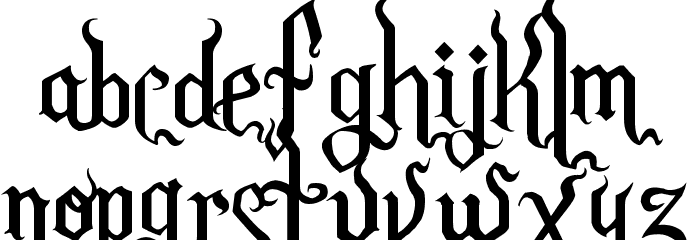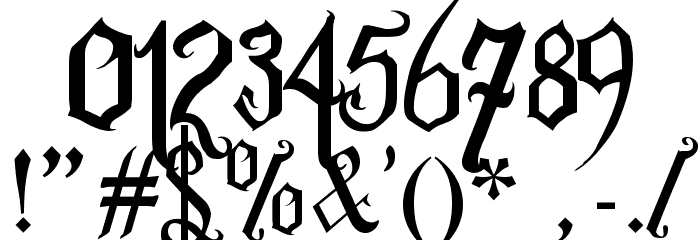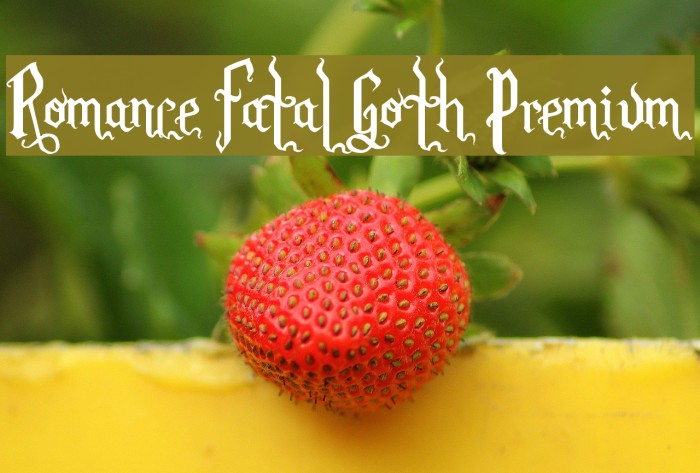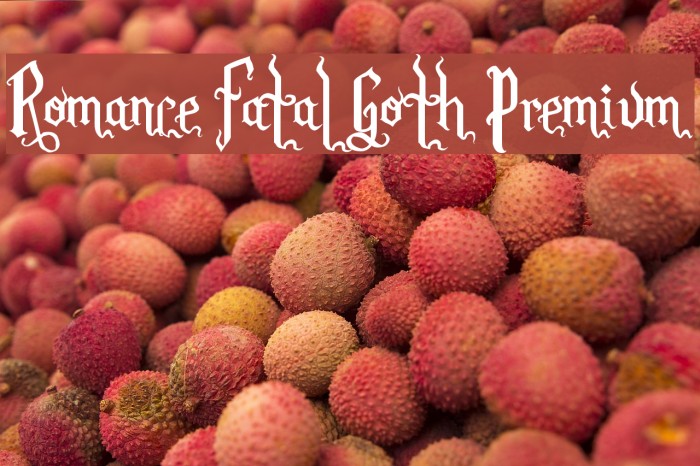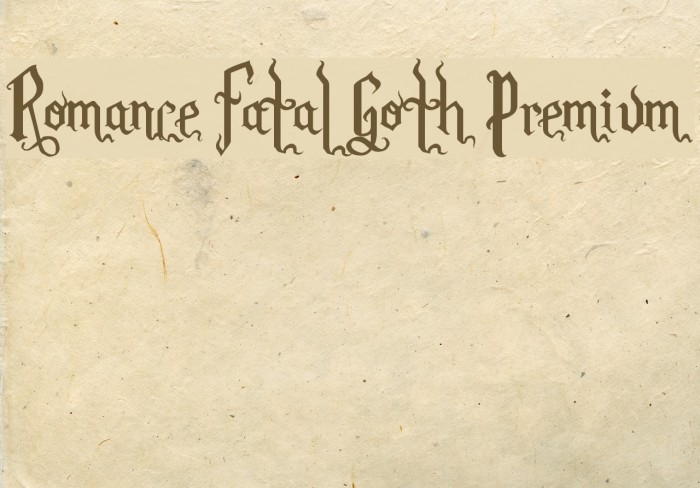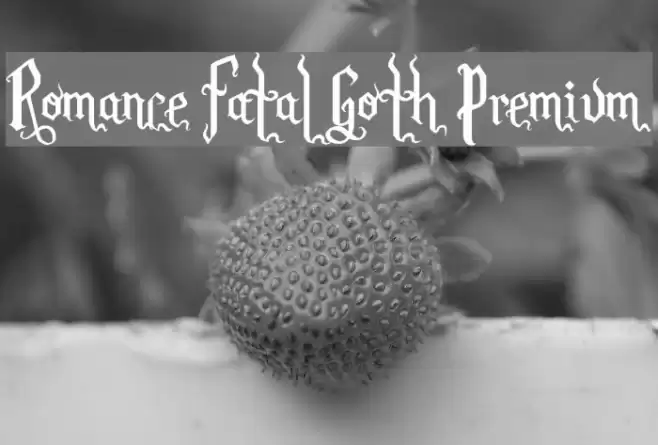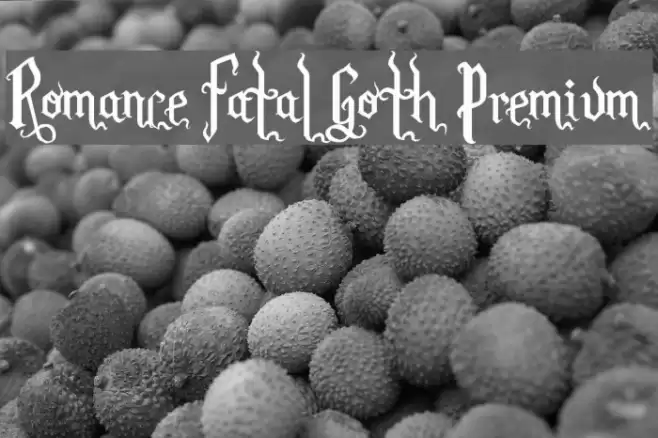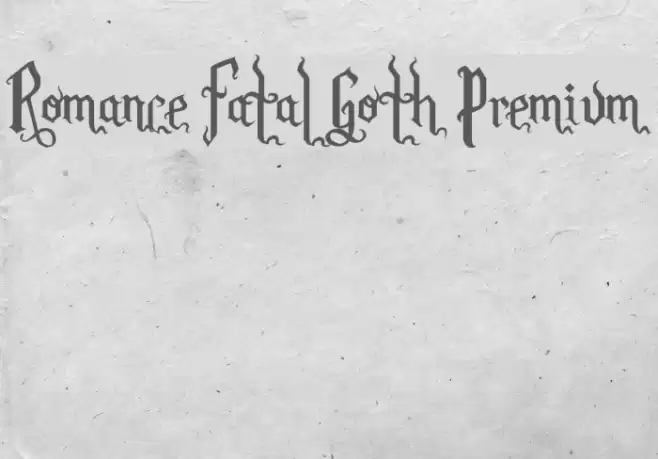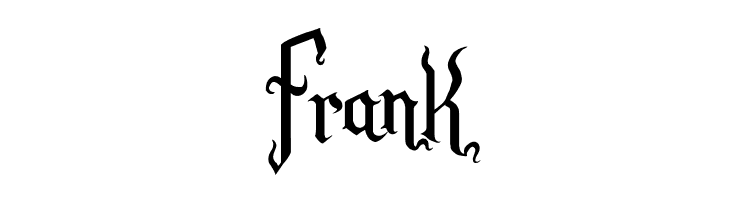
Romance Fatal Goth Premium Font
This font features a dramatic and ornate style, reminiscent of Gothic script with a modern twist. The uppercase letters are characterized by sharp, angular lines and intricate flourishes, giving them a bold and striking appearance. The lowercase letters maintain a similar aesthetic, with a slightly more subdued flair, allowing for readability while retaining the decorative elements. Numbers and special characters follow the same design principles, ensuring consistency across all glyphs. The overall look is both elegant and edgy, making it suitable for projects that require a touch of sophistication and drama.
An ornate Gothic-inspired font with bold, angular lines and intricate flourishes.
- Font: Romance Fatal Goth Premium
by JuanCasco - Weight: Premium
- Proposed Projects: Ideal for use in branding, album covers, posters, and any design project that seeks to convey a sense of elegance and drama.